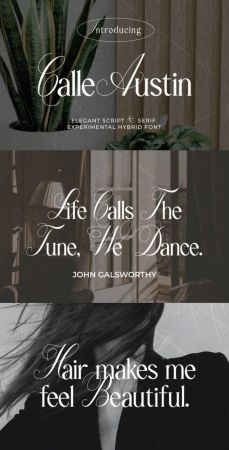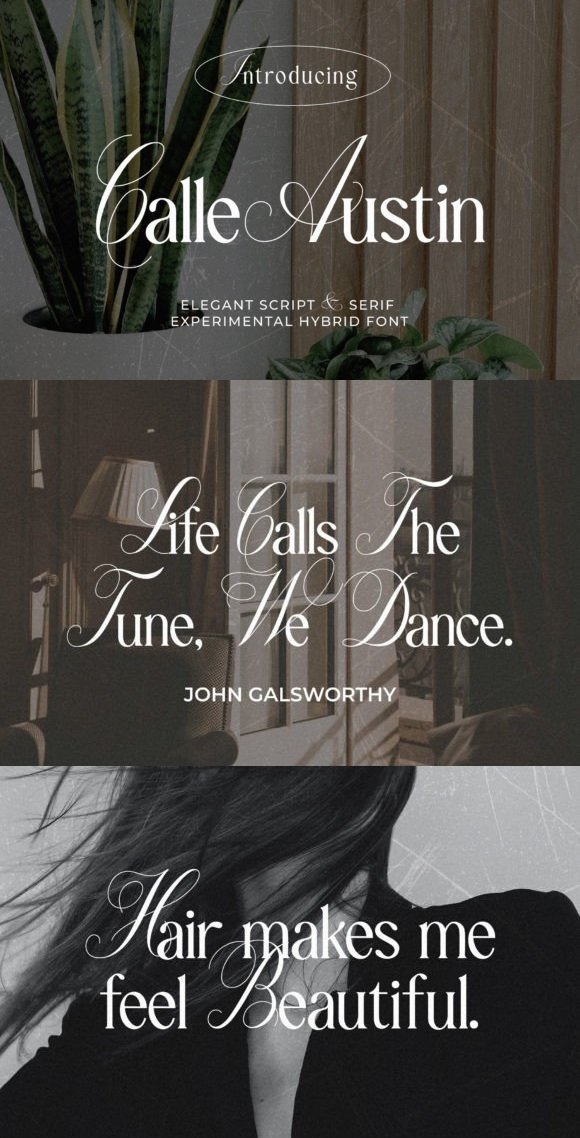
Calle Austin is an avant-garde font that seamlessly fuses the elegance of script style in uppercase with the sophistication of serif style in lowercase. Tailored for advertising, magazines, social media posts, and beauty product branding, this font introduces a contemporary and refined touch to any design.